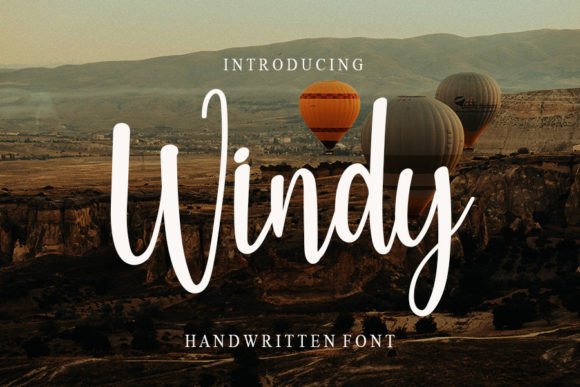
About Windy Font
“Windy” is a cool handwritten font that blends modernity with the classic elegance of calligraphy. It offers a balanced and spotless form that adds a touch of sophistication to your design projects. This font was carefully crafted to enhance the beauty of your creations, striking a harmonious balance between thin and thick strokes while offering a varied and captivating aesthetic.
The uniqueness of “Windy” lies in its ability to combine contemporary design elements with the timeless charm of calligraphy. Its modern vibe, coupled with classic calligraphic inspiration, ensures that your projects exude both elegance and a sense of freshness.
Whether you’re working on branding, invitations, posters, quotes, logos, or any design project where a touch of balanced and varied elegance is desired, “Windy” is the font that will help you achieve that perfect blend of modernity and classic beauty.
In the world of design, making a memorable impression is crucial, and “Windy” excels at this. It elevates your projects, making them stand out and ensuring that your message or content is conveyed with a sense of refinement and allure.
In summary, “Windy” is more than just a font; it’s a design asset that effortlessly combines modernity and classic calligraphic beauty. Its balanced and varied form makes it suitable for a wide range of projects, allowing you to create designs that are not only visually appealing but also timelessly elegant. Embrace “Windy” and let its modern yet classic charm enhance your creative endeavors, leaving a lasting impression on your audience.